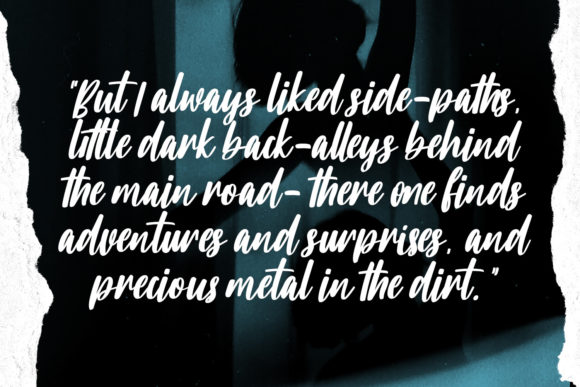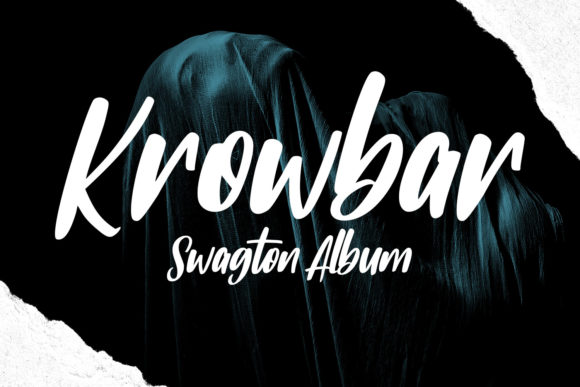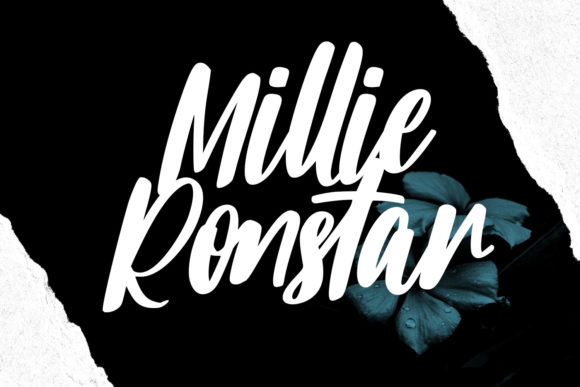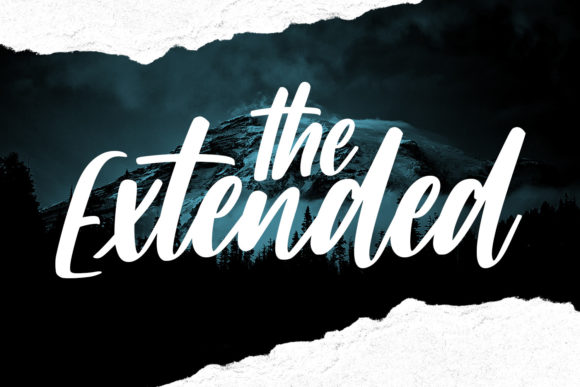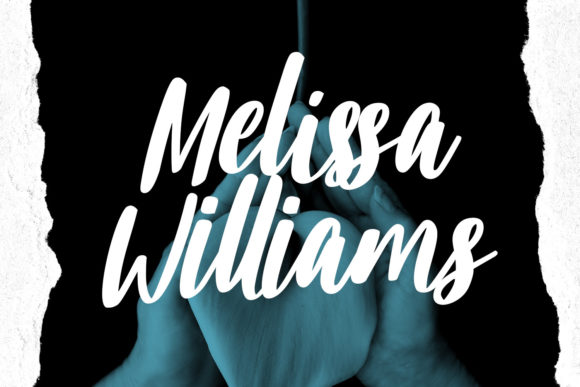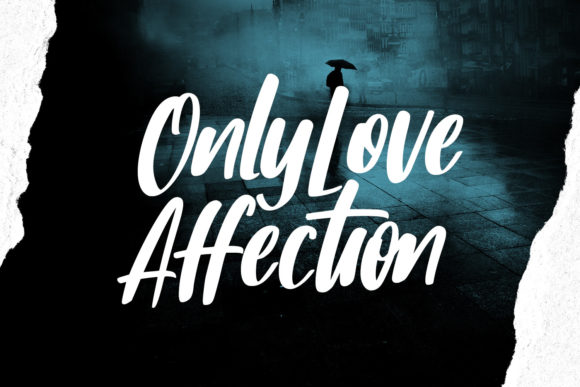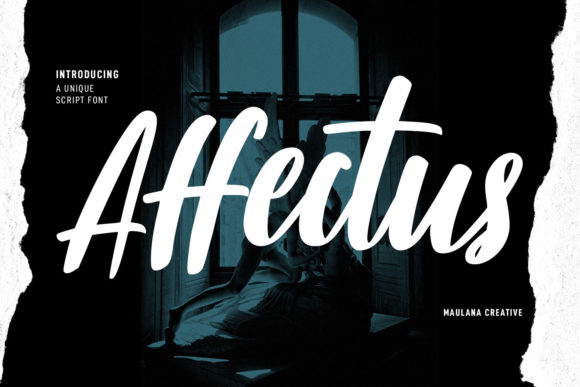
Affectus Font: Elevate Your Designs with a Fancy yet Relaxed Handwritten Script
Are you a designer or crafter looking for a unique and versatile font to elevate your creative projects? Look no further than Affectus Font, a fancy yet relaxed handwritten script font that is perfect for both formal and informal designs. With its elegant and effortless charm, Affectus Font is sure to inspire your imagination and take your designs to the next level.
What is Affectus Font?
Affectus Font is a beautifully crafted handwritten script font that exudes a sense of sophistication and relaxation. Its unique blend of elegance and informality makes it an ideal choice for a wide range of design projects, from formal invitations and certificates to informal social media graphics and craft projects.
One of the standout features of Affectus Font is its versatility. Whether you’re creating a formal or informal design, this font is sure to adapt seamlessly to your project’s tone and style. Its relaxed, handwritten feel makes it perfect for designs that require a personal touch, while its elegant lines and curves ensure that it remains suitable for more formal applications.
Key Features of Affectus Font
So, what makes Affectus Font so special? Here are just a few of its key features:
• Fancy yet relaxed: Affectus Font strikes the perfect balance between elegance and informality, making it suitable for a wide range of design projects.
• Handwritten script: With its unique, handwritten feel, Affectus Font adds a personal touch to any design.
• Versatile: Whether you’re creating a formal or informal design, Affectus Font is sure to adapt seamlessly to your project’s tone and style.
• Easy to read: Despite its elegant lines and curves, Affectus Font remains easy to read, even at smaller sizes.
Use Cases for Affectus Font
So, what can you use Affectus Font for? The possibilities are endless! Here are just a few ideas to get you started:
• Formal invitations: Use Affectus Font to create beautiful, elegant invitations for weddings, parties, and other special occasions.
• Social media graphics: Add a personal touch to your social media graphics with Affectus Font’s unique, handwritten feel.
• Craft projects: Use Affectus Font to add a touch of elegance to your craft projects, such as handmade cards, gift tags, and scrapbook pages.
• Certificates and awards: Affectus Font is perfect for creating formal certificates and awards that require a touch of sophistication.
Tips for Using Affectus Font
Here are a few tips for getting the most out of Affectus Font:
• Experiment with different sizes: Affectus Font looks great at a range of sizes, from large headings to smaller body text.
• Pair with other fonts: Try pairing Affectus Font with other fonts to create a unique and interesting contrast.
• Use it sparingly: While Affectus Font is beautiful on its own, it can also be used sparingly to add a touch of elegance to your designs.